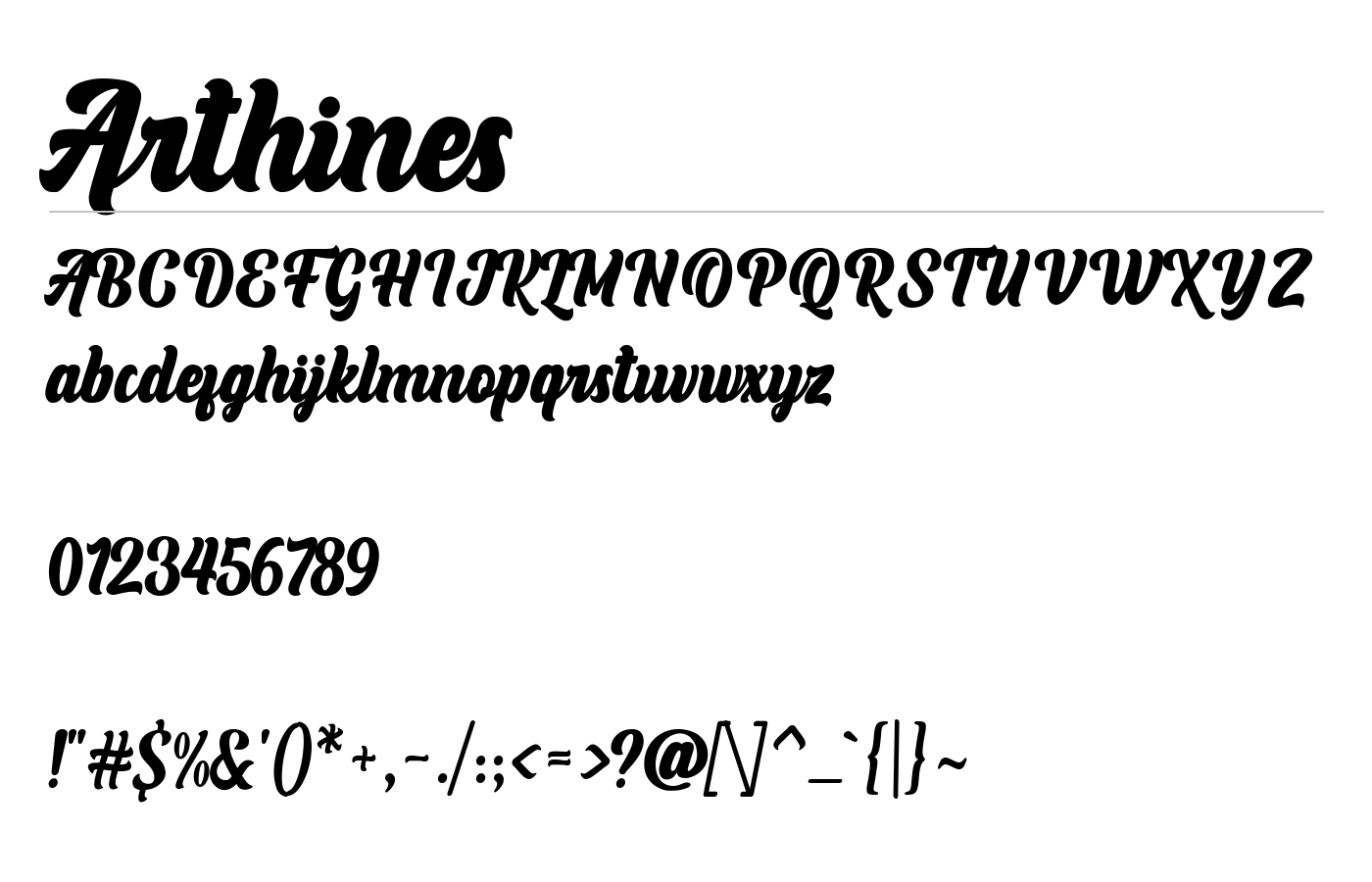
Arthines is a bold, script-style font with smooth, flowing letterforms that combine elegance and a touch of vintage charm. Its thick strokes and slightly condensed shapes make it ideal for eye-catching headlines, logos, and branding that aim to convey creativity and confidence while maintaining readability. This font works best in designs that want to blend sophistication with a friendly, approachable vibe.
Arthines Font
About Arthines Font
| Designer | Hanief Farandi |